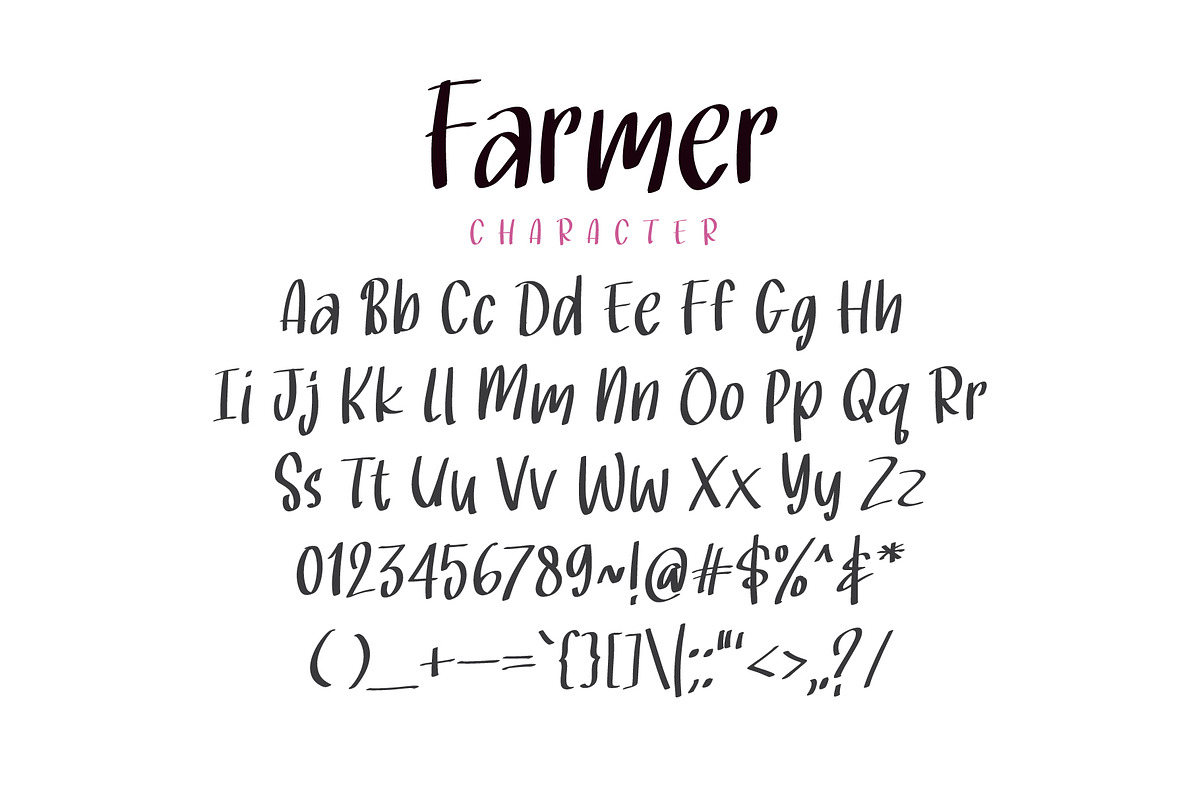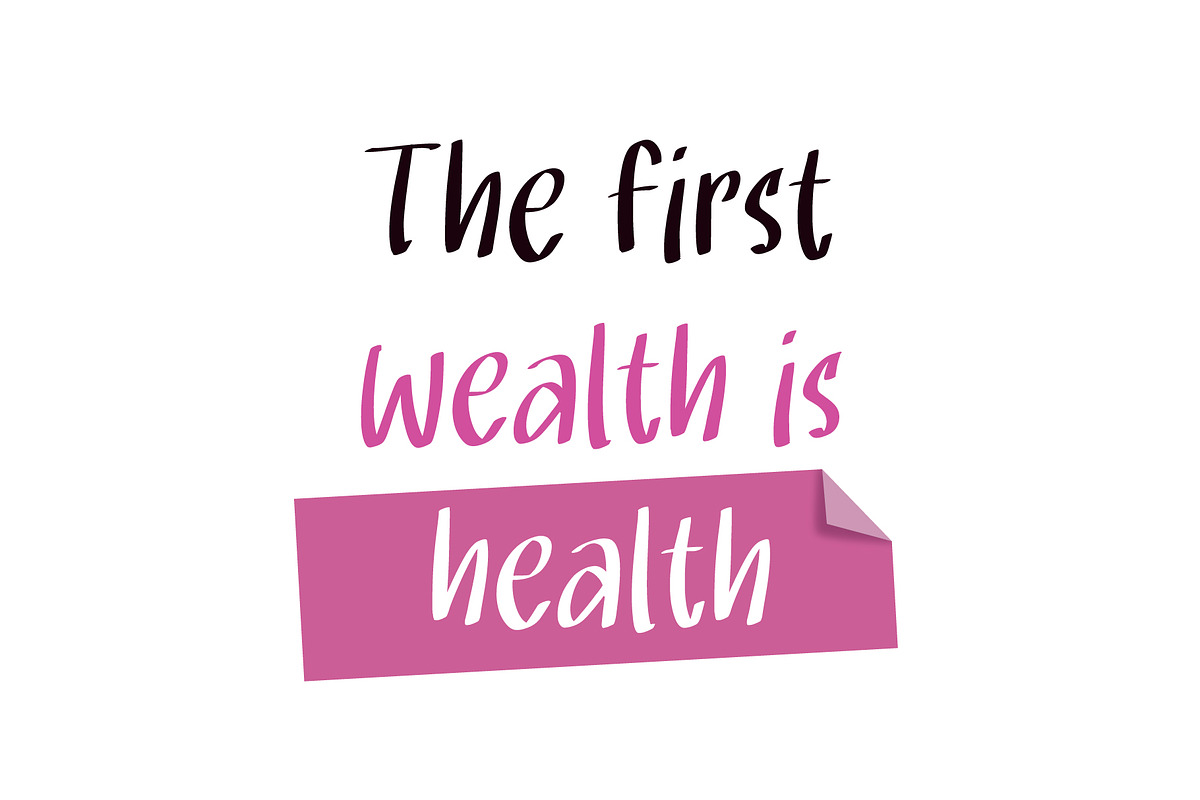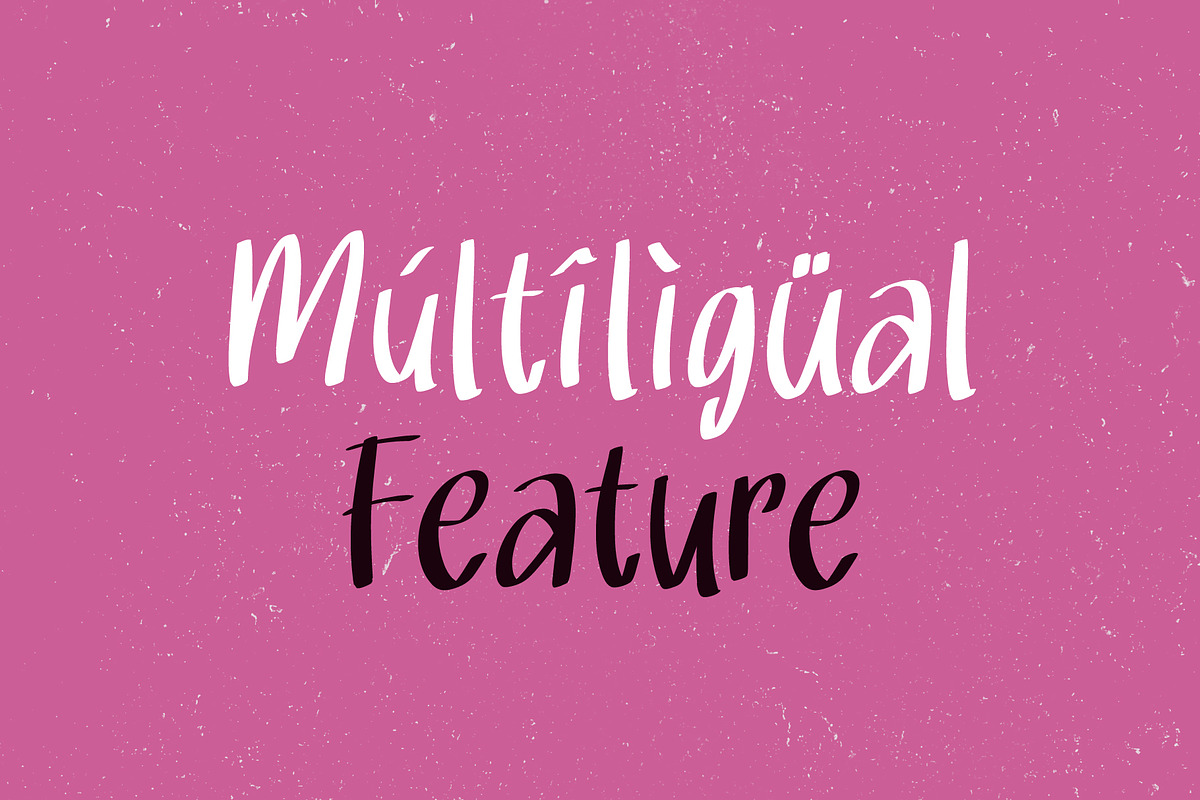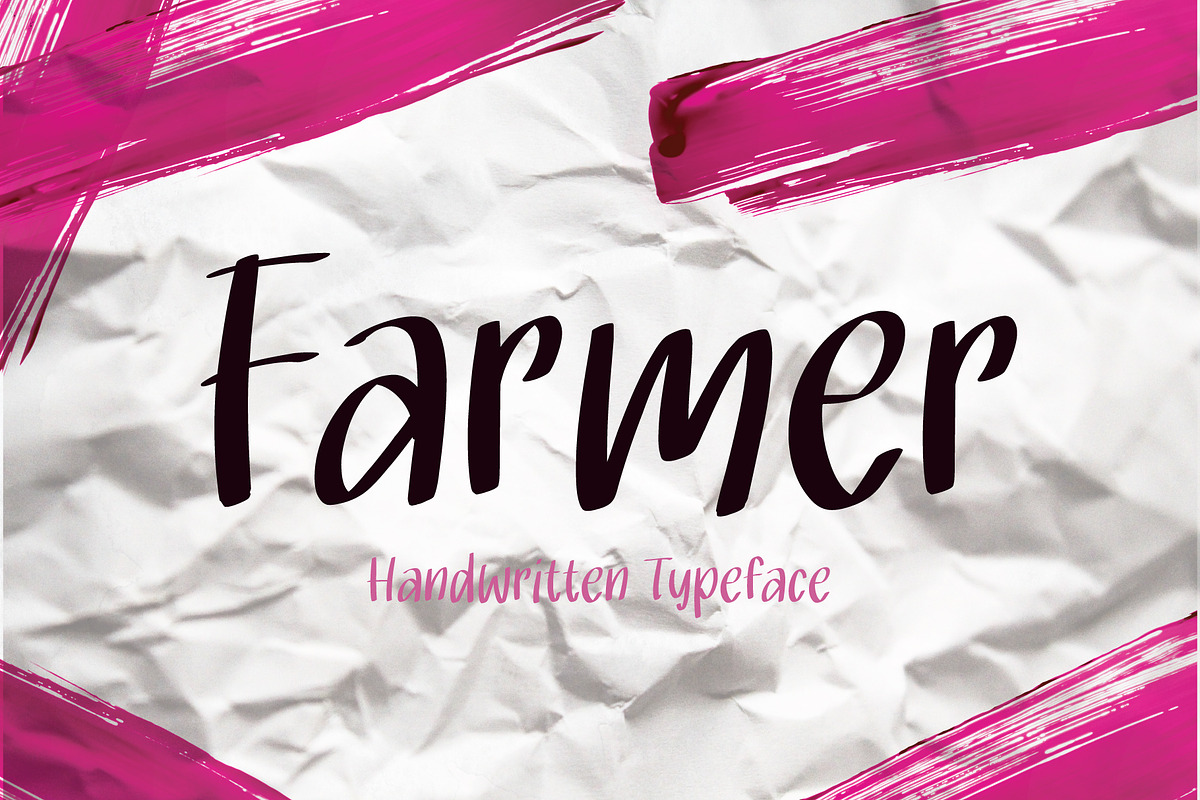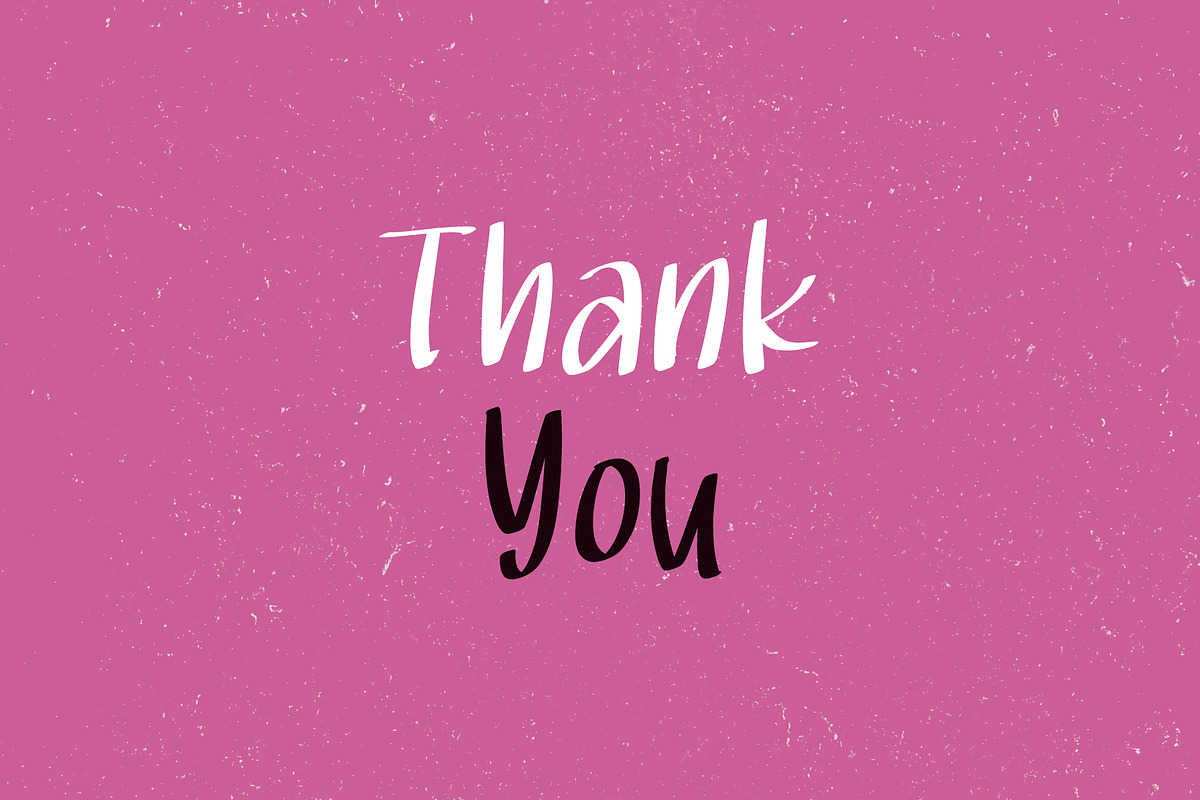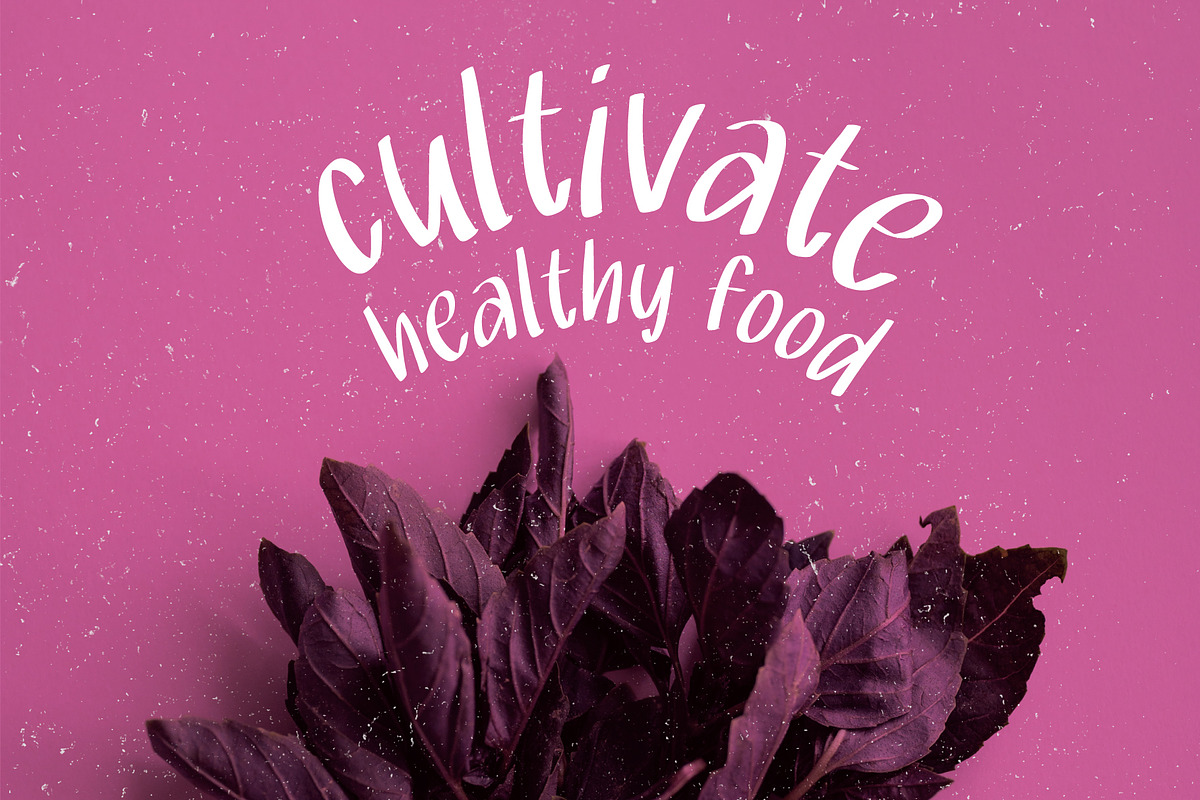
Farmer
Farmer is a clean, cute, and adaptable handwritten font that can be used for various designs! Its authentic vibe will add a personal and realistic feel to your designs.